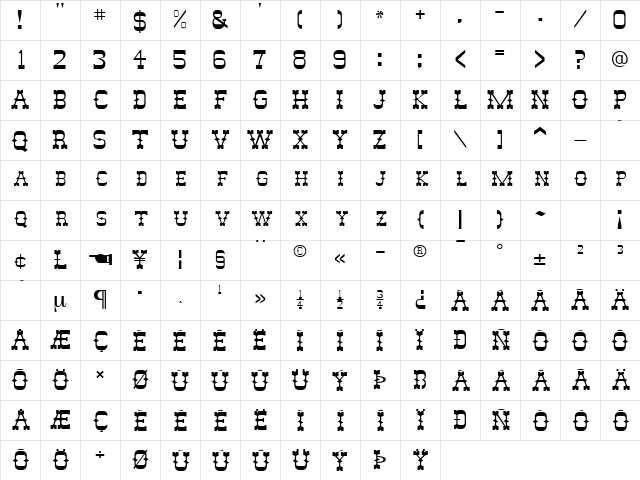
SlimPickensCapsSSK Regular
Design Context for SlimPickensCapsSSK
SlimPickensCapsSSK is a composed and adaptable typeface that performs quietly and consistently across a wide range of design contexts.